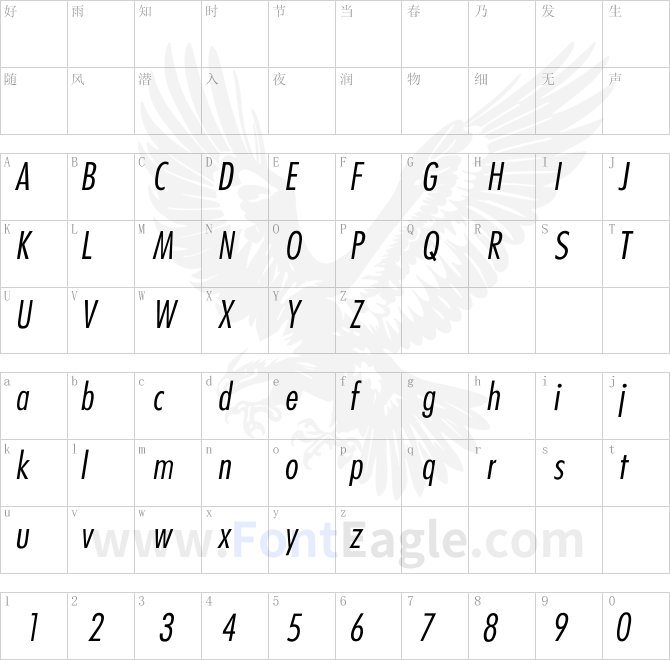
Futura-CondensedLight-Italic is a great font, widely used in graphic design, single-page menu design, poster design and other fields, and is deeply loved by designers.Futura-CondensedLight-Italic download.